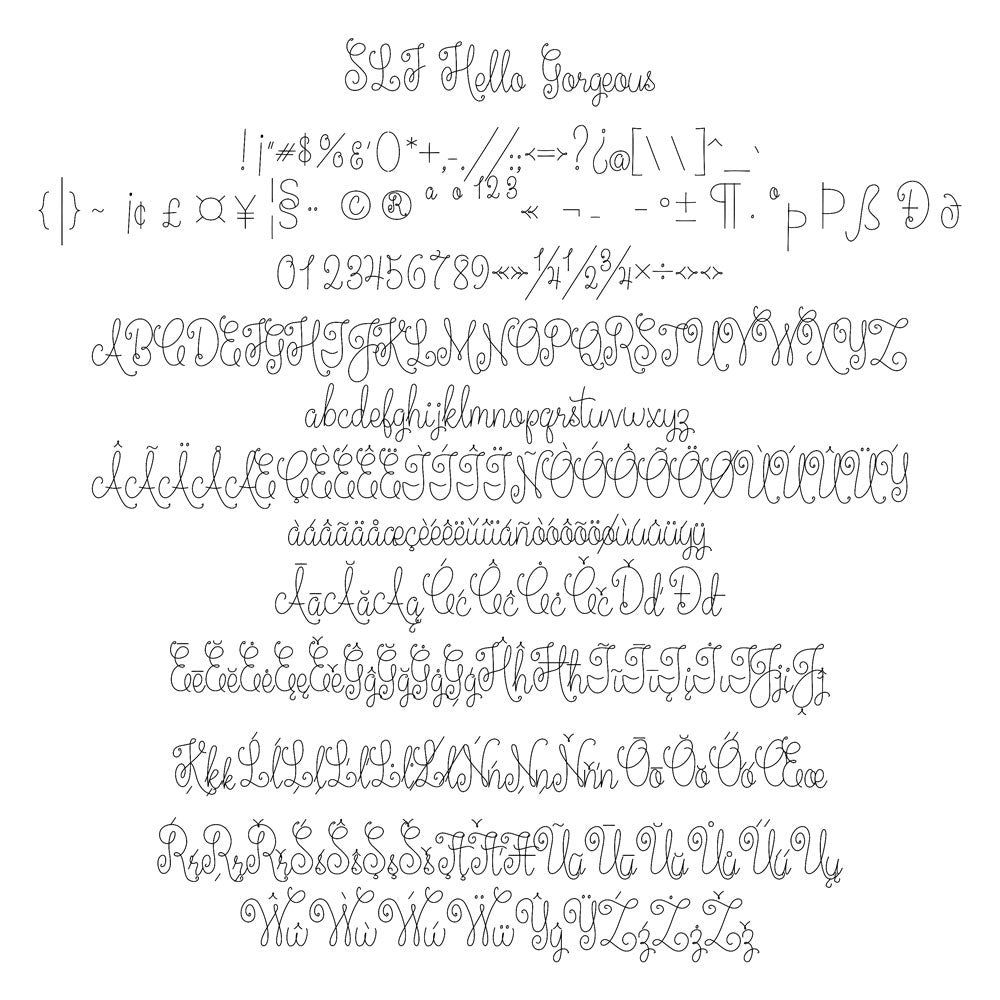
SLF Hello Gorgeous – Elegant Single Line Font for Engraving & Special Projects
SLF Hello Gorgeous is an elegant, stylish single line print font with refined curves and high-end appeal. Its graceful letterforms bring sophistication and flair to engraving, scoring, CNC routing, and creative craft projects. Perfect for signage, wedding décor, personalized gifts, labels, and upscale designs that need a touch of beauty.
This monoline font includes a complete character set with uppercase and lowercase letters, numbers, punctuation, symbols, and accented characters for multilingual support.
• Wedding signage, labels, cards, and elegant engravings